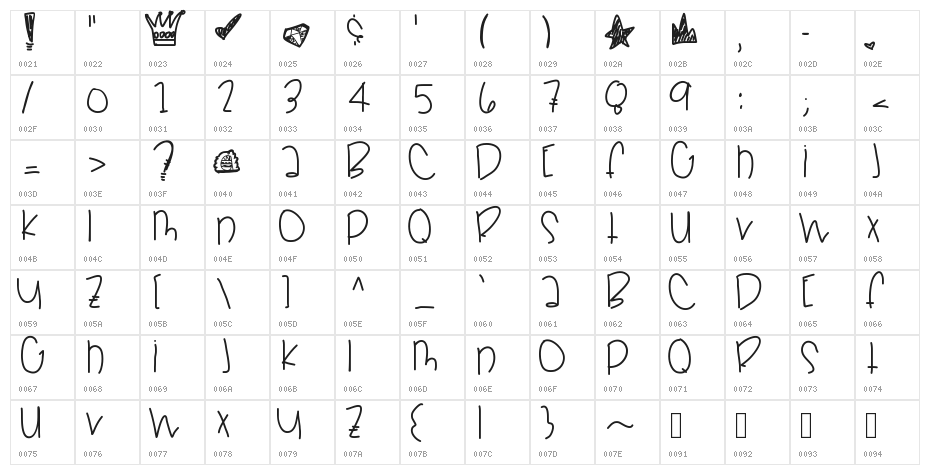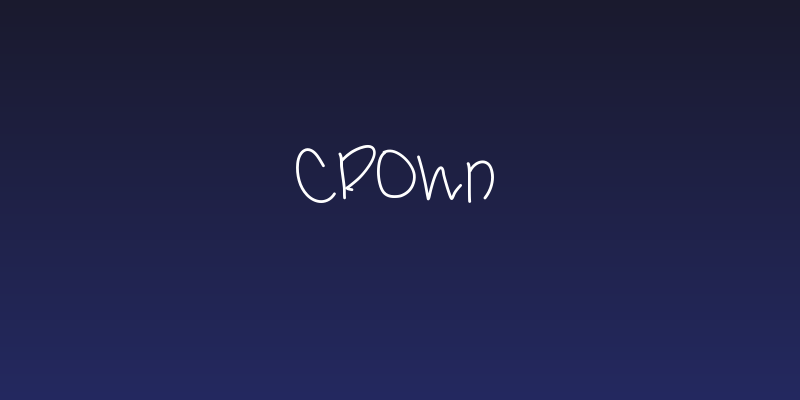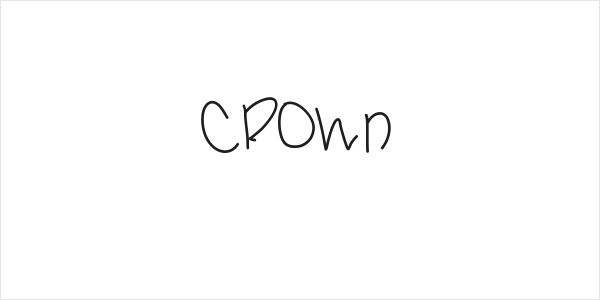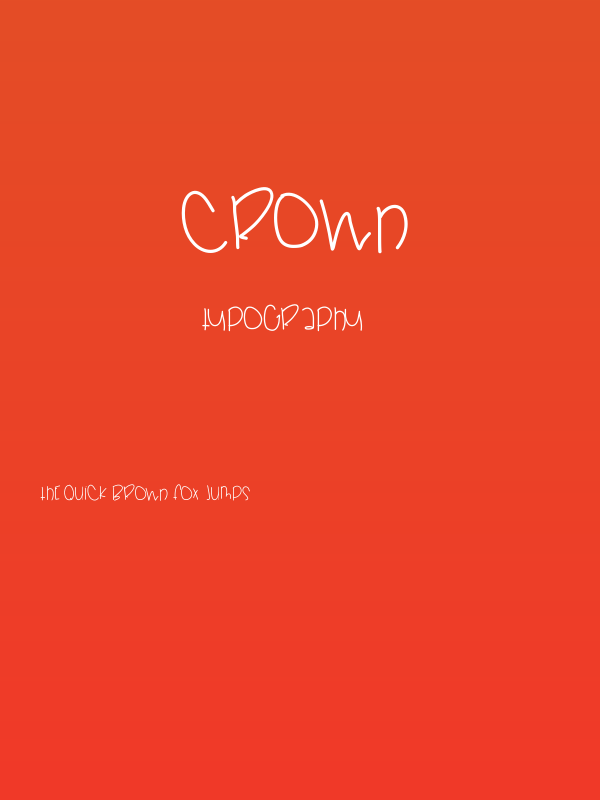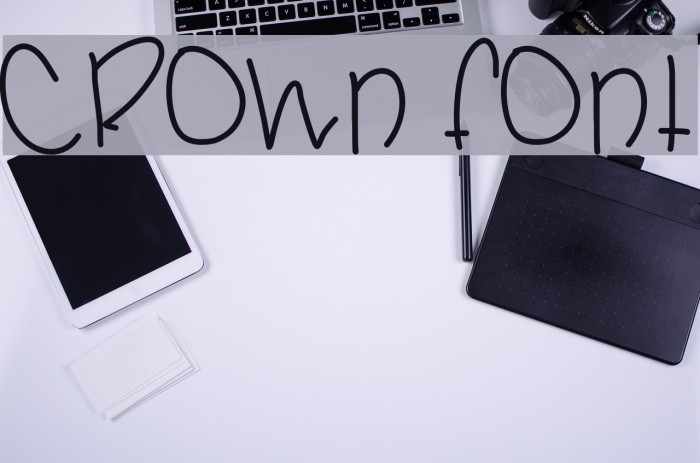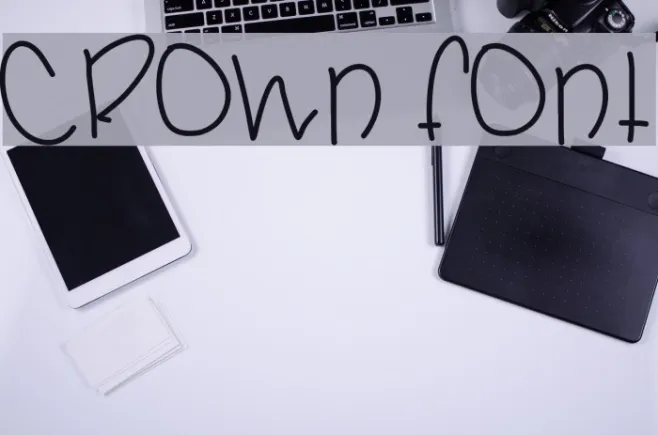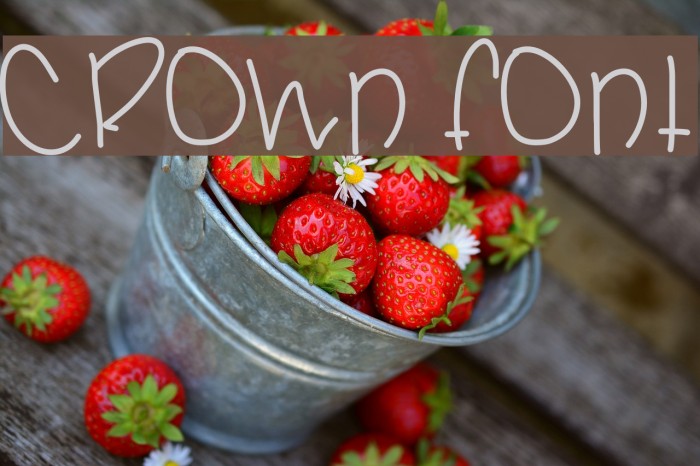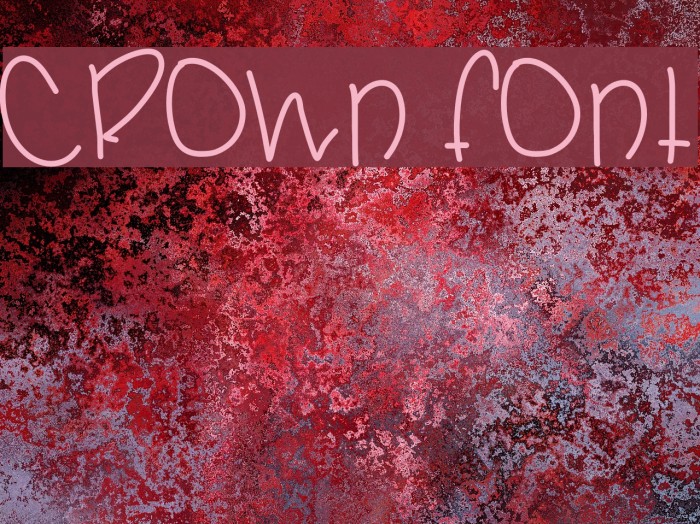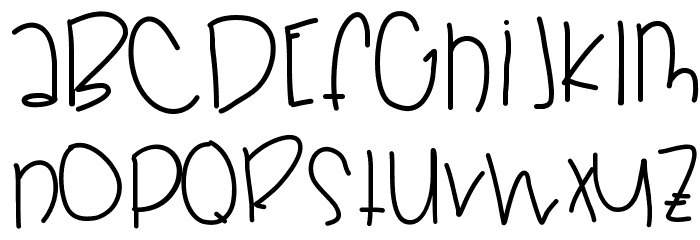
Crown Font
Crown Description
This playful and whimsical font features a handwritten style with a casual, informal appearance. The letters are slightly irregular, giving it a charming and approachable feel. The strokes are consistent in width, with rounded edges that add to its friendly nature. The uppercase and lowercase letters maintain a cohesive style, while the numbers and special characters complement the overall design. This font is ideal for projects that require a personal touch, such as invitations, greeting cards, or children's book covers. Its unique style makes it stand out, while still being legible and versatile.
| Overall Style | Whimsical |
| Proposed Projects | Ideal for invitations, greeting cards, children's books, and playful branding. |